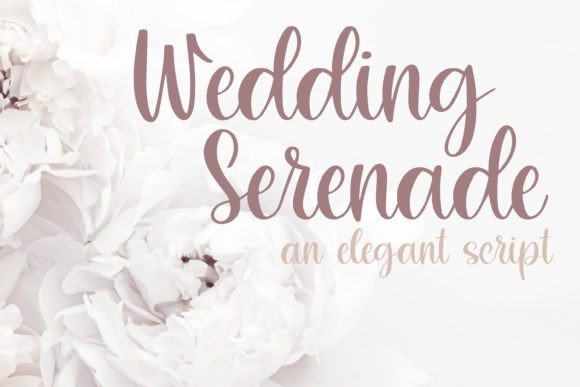
Introducing the Wedding Serenade Font, a modern and exquisite script family crafted to bring a touch of sophistication and elegance to your creative projects. Its graceful curves and fluid strokes dance across the page, exuding a timeless allure that captivates the senses.
With Wedding Serenade, you hold the key to unlocking a world of luxurious branding, where every letter becomes an art form. Design invitations that inspire awe, leaving a lasting impression on your guests. Craft editorial designs that ooze class and refinement, transporting readers to a realm of understated beauty.
This font family is meticulously crafted with attention to detail, elevating your designs to a higher level of refinement. Its PUA encoding ensures seamless access to a treasure trove of glyphs and swashes, empowering you to unleash your creativity and add a personal touch to your projects.
Wedding Serenade is your perfect partner for creating breathtaking wedding stationery. Its elegant charm will adorn your invitations, programs, and menus, setting the stage for an unforgettable celebration. Let your words dance across the page in a symphony of sophistication, leaving your guests spellbound.
This font is not just a collection of letters; it's an expression of artistry, a testament to the power of beauty and grace. With Wedding Serenade, you'll elevate your designs to new heights, leaving an indelible mark on the hearts of your audience.